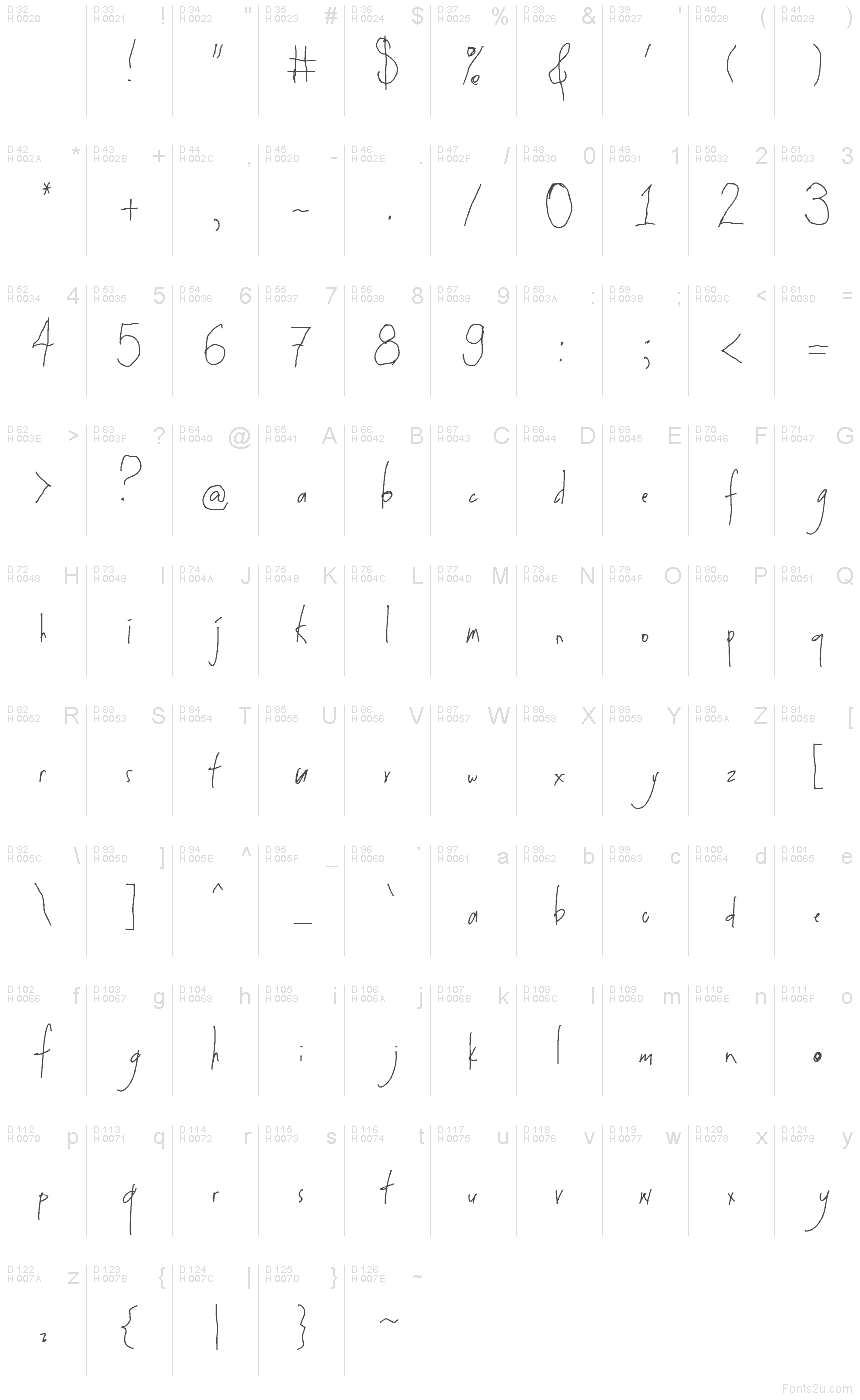
Arkinthor Hands Alternates Light
Arkinthor Hands Alternates Light font by The Branded Quotes offers a light handwritten style with an organic flow and casual elegance. The font contributes to an expressive mood with artistic flair, which makes it suitable for contemporary applications in personal branding and creative projects.
Use this free handwritten font for logos, labels, business cards, urban typography designs, magazines covers or pages, posters or billboards in streets. Blogs such as travel or fashion ones can use the same typeface to freshly update their websites design. It is also compatible with invitations and greeting cards whose target are younger generations.
Arkinthor Hands Regular - Contains uppercase and lowercase characters.
Arkinthor Hands Heavy - Bold version of the Regular font.
Arkinthor Hands Alternates - Includes lowercase alternates and ligatures.
Arkinthor Hands Alternates Light - Lighter version of the lowercase alternates.
Arkinthor Hands Capitals - Provides uppercase characters along with uppercase alternates.
Arkinthor Hands Caps Heavy - A bold version of the capitals, this is the most commonly used variation.
Arkinthor Hands Signature - A signature script style of the font.